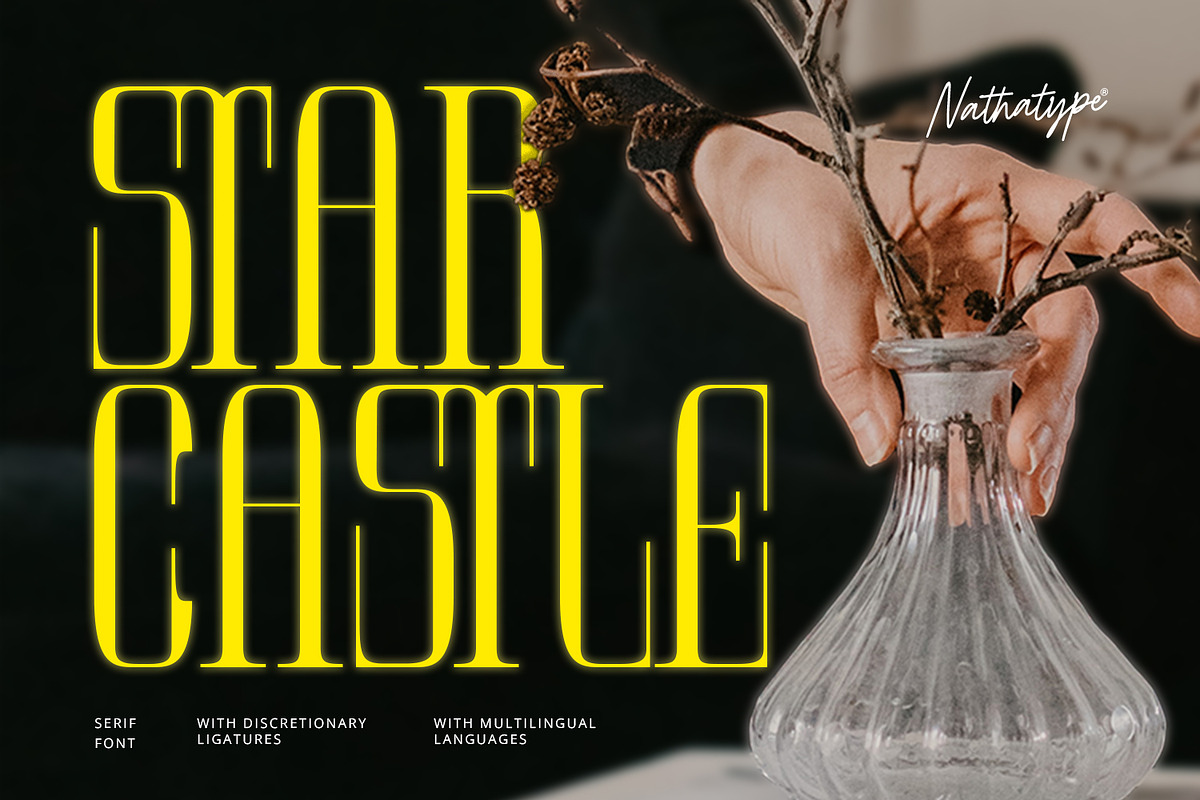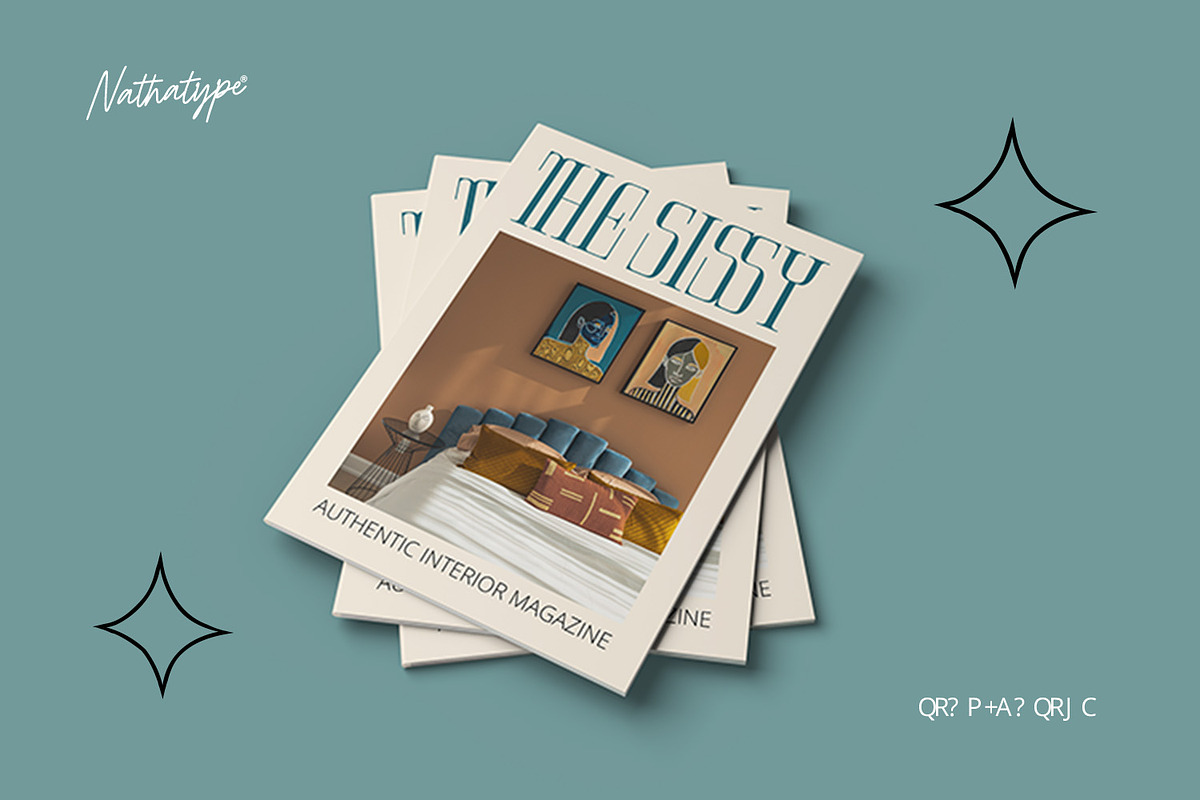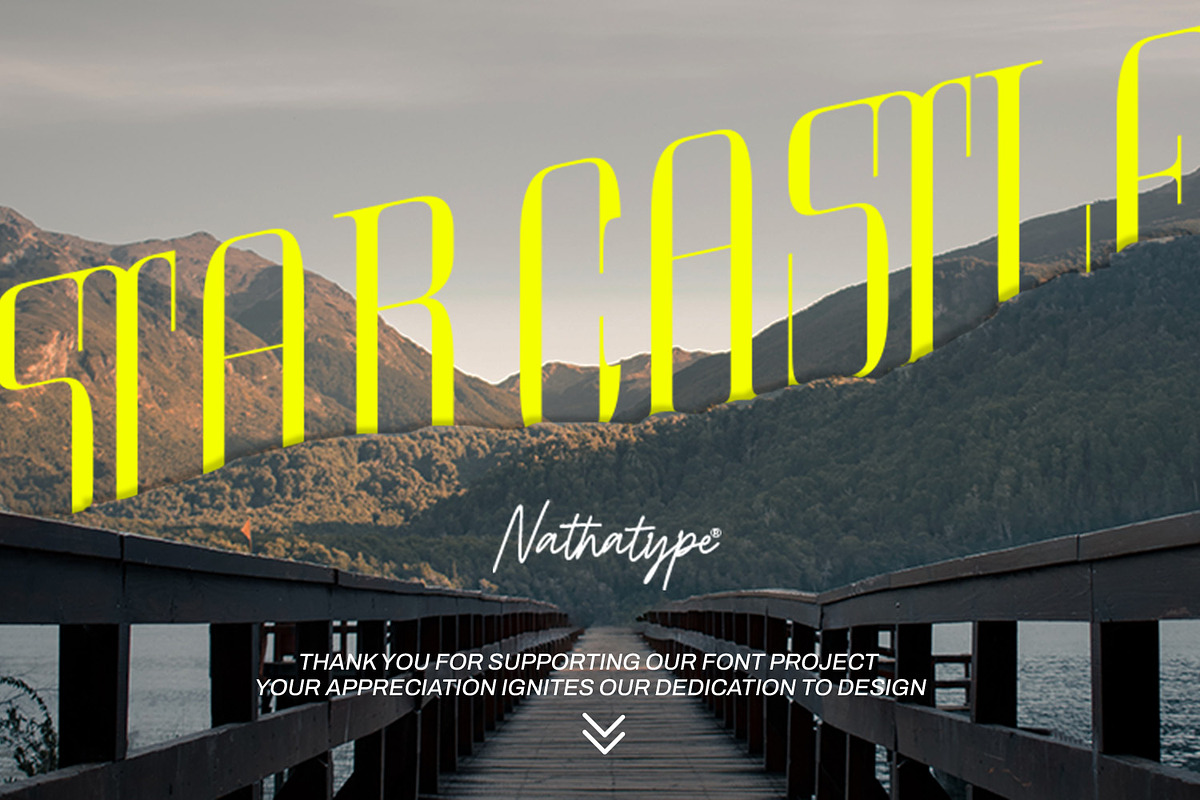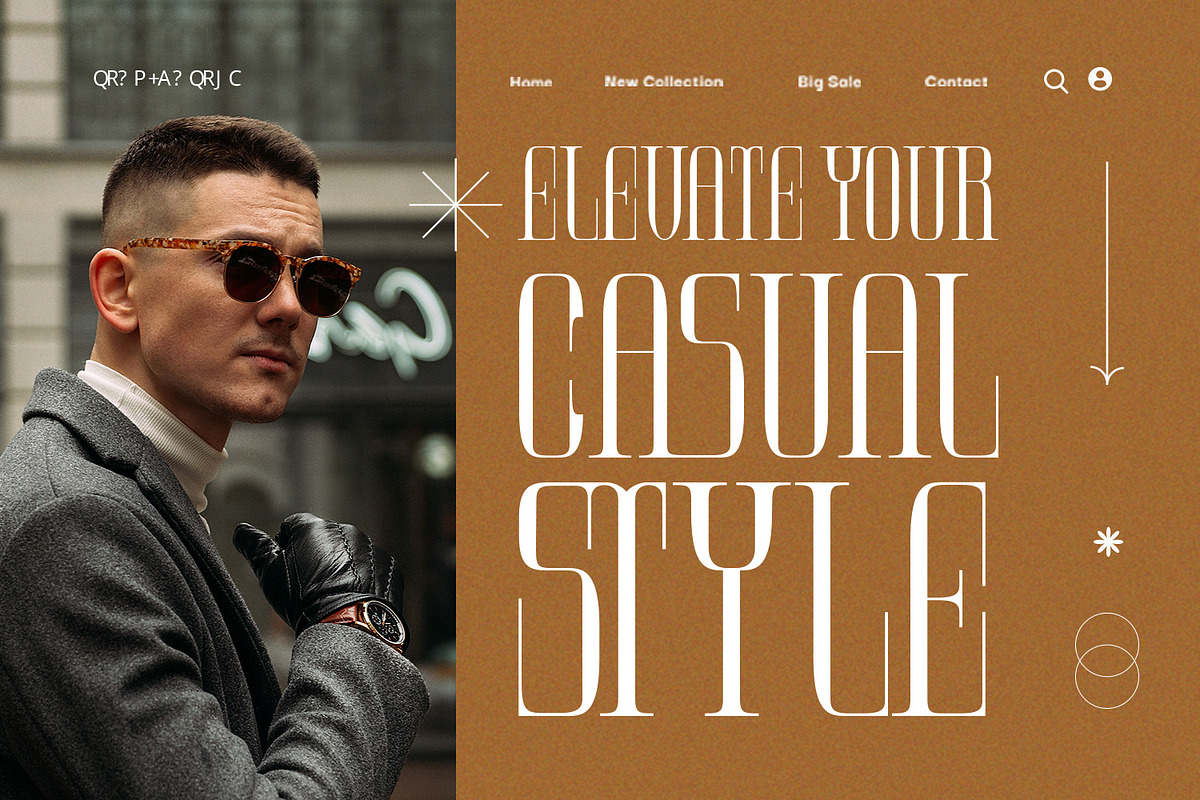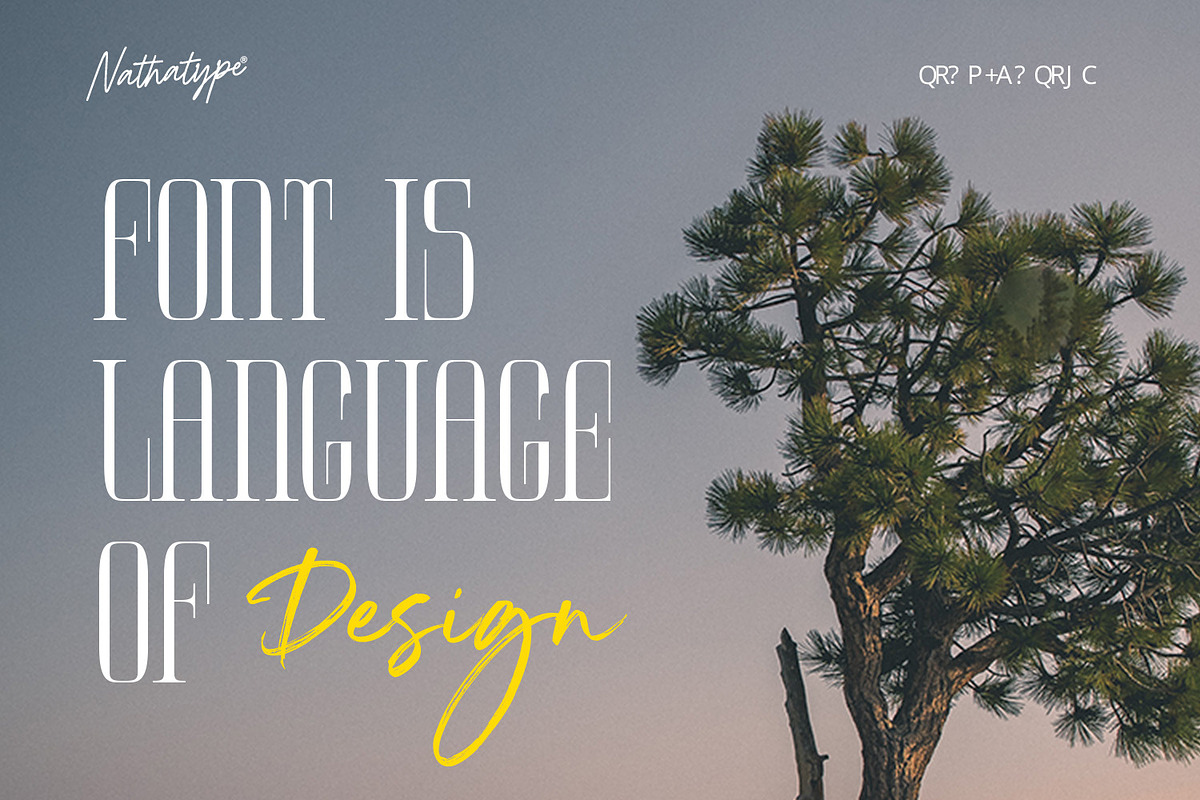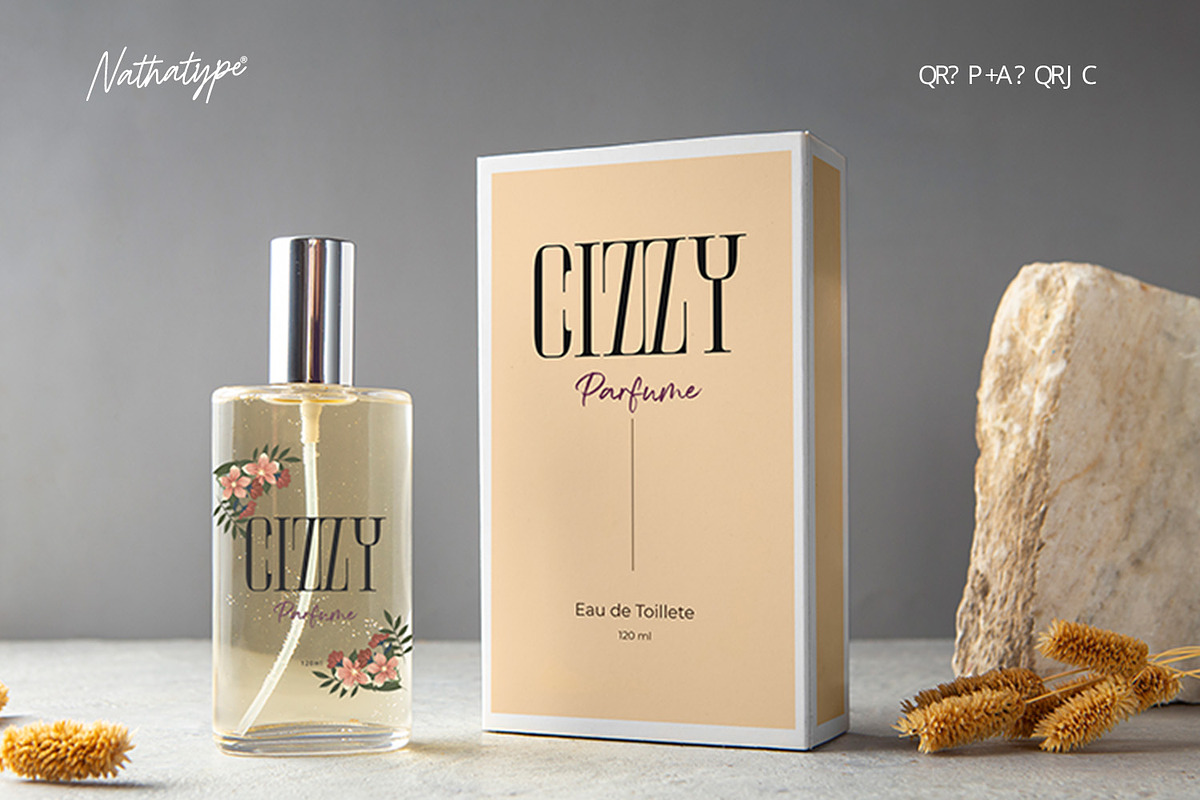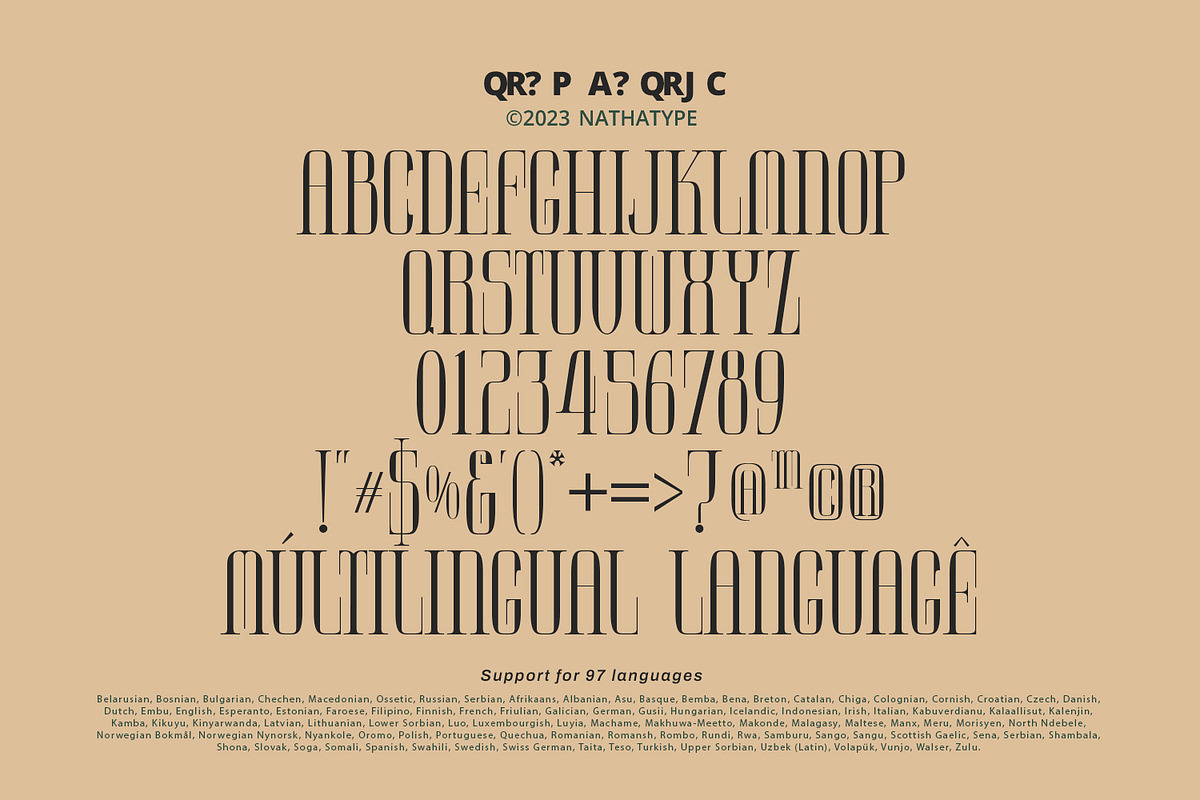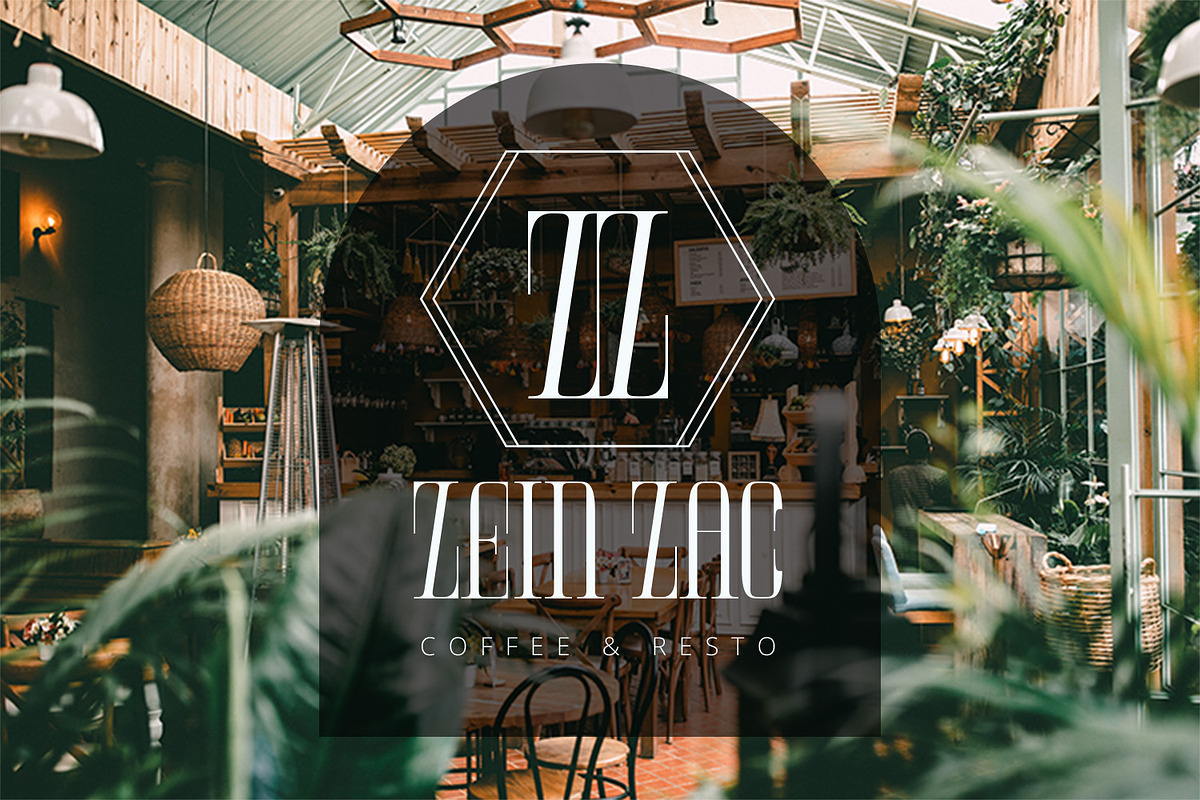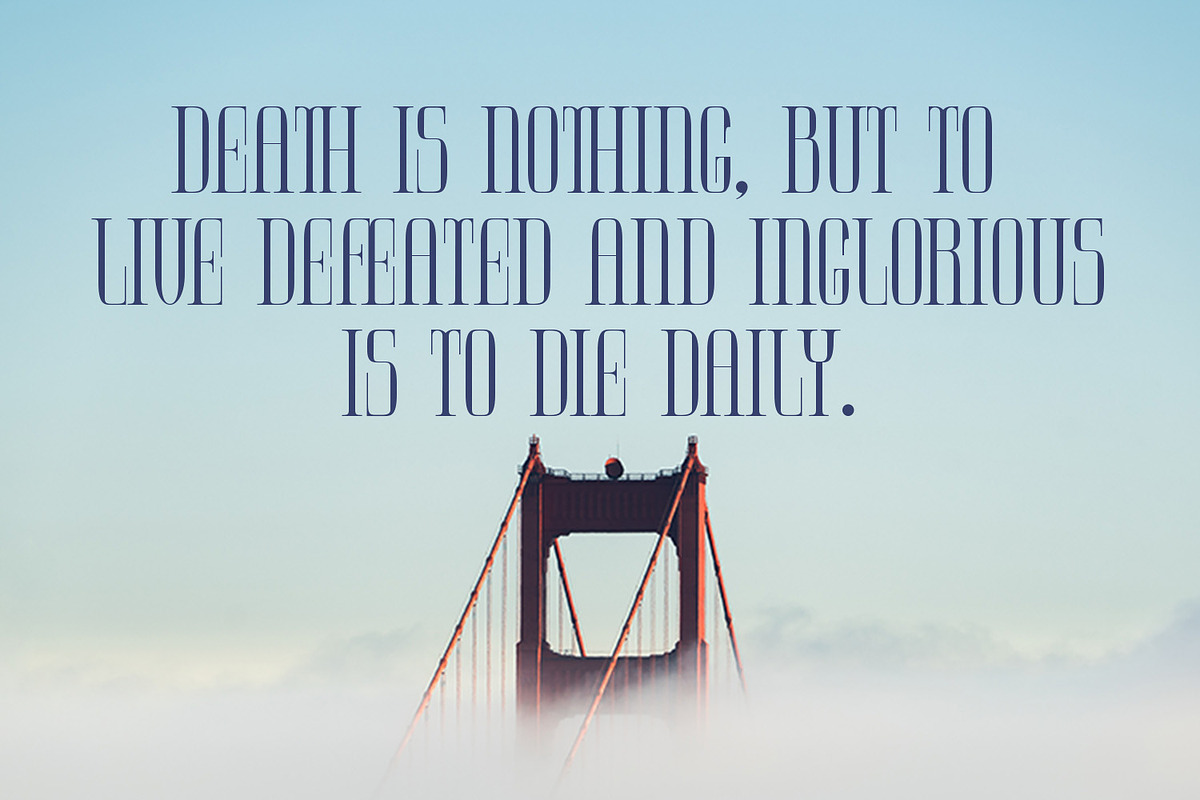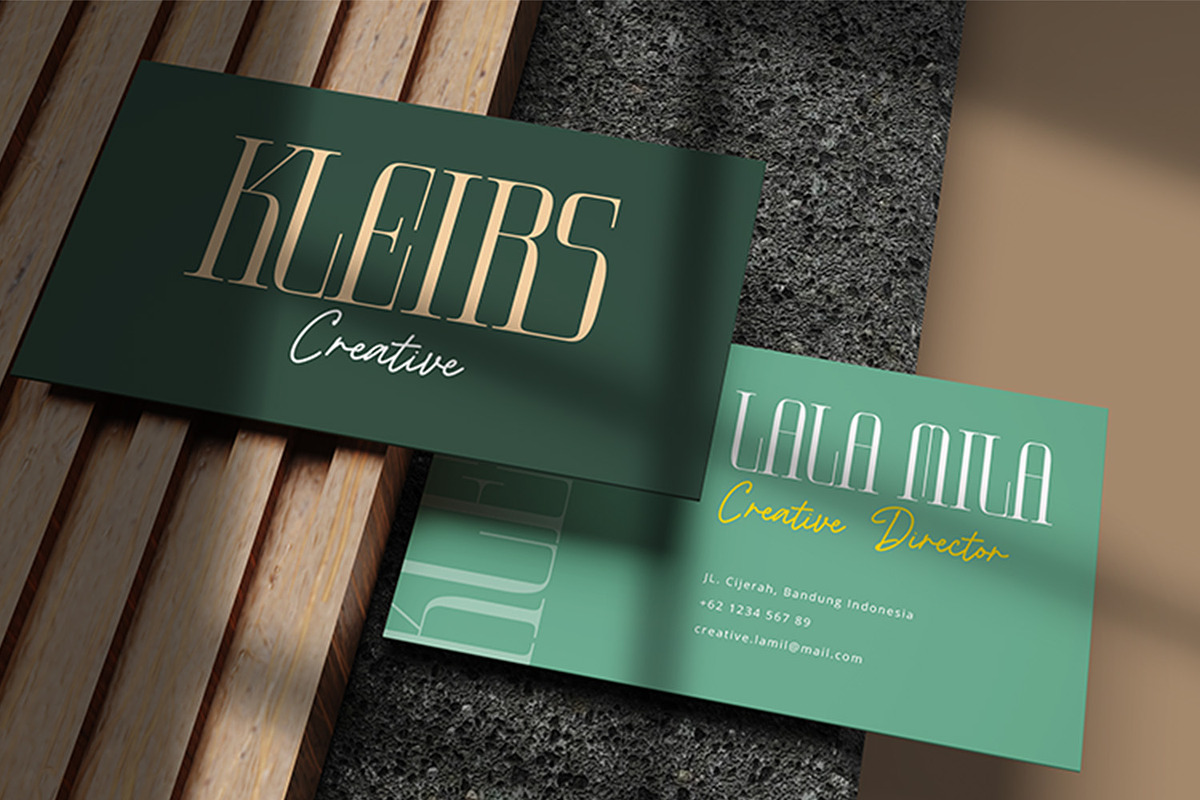
Star Castle
Star Castle is a sophisticated serif font. It's a versatile tool that allows you to infuse your projects with a sense of elegance and modernity. The deliberate use of high contrast ensures not only readability but also adds a touch of modern elegance to this timeless typeface.
The characters in Star Castle are meticulously crafted, each possessing an elongated and rectangular form that contributes to the font's unique visual identity. The thin weight offers a delicate touch, allowing the tall letter design to stand out while maintaining an overall sense of grace. Enjoy the features here.
Star Castle fits in headlines, logos, posters, flyers, branding materials, greeting cards, print media, editorial layouts, and many more designs. Find out more ways to use this font by taking a look at the font preview.